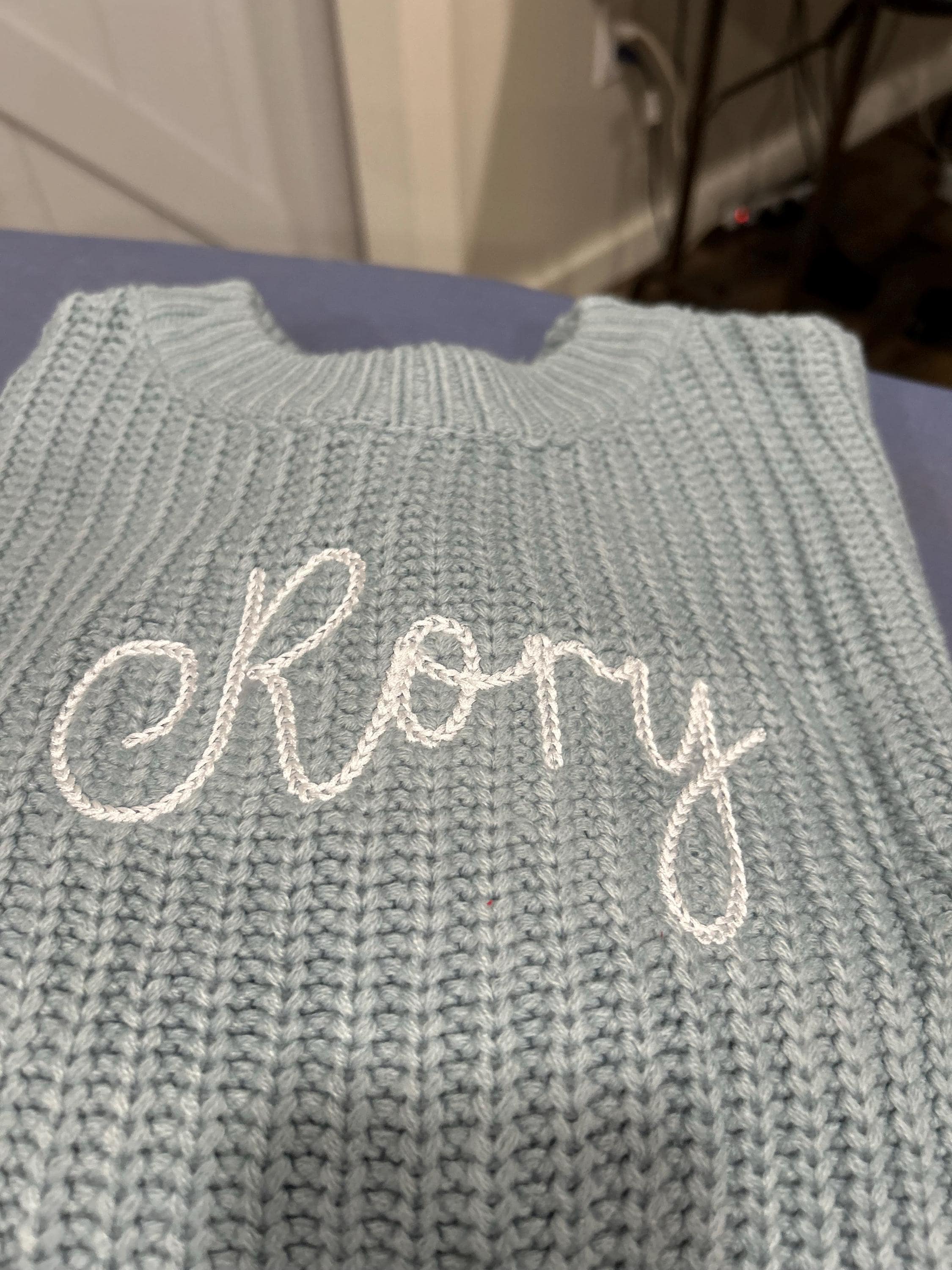
Bold Authentic Hand Chain stitch FONT machine embroidery designs in alphabet letters knit sweater handmade effect chain name, BX included
Entire alphabet uppercase and lowercase letters, numbers, and punctuation.